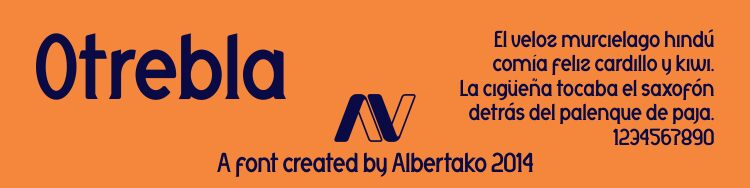
Otrebla
Otrebla is a striking, condensed font designed by Alberto Villanueva. With its bold, angular letterforms and a captivating reverse contrast, Otrebla exudes a sense of strength and visual intrigue. The font's unique design lends itself well to a variety of applications, from bold headings and display text to branding and packaging. Its condensed nature makes it a versatile choice, allowing designers to create impactful typographic compositions in limited spaces.
Otrebla's distinct personality can elevate projects across various industries, infusing them with a sense of contemporary sophistication and memorable character.